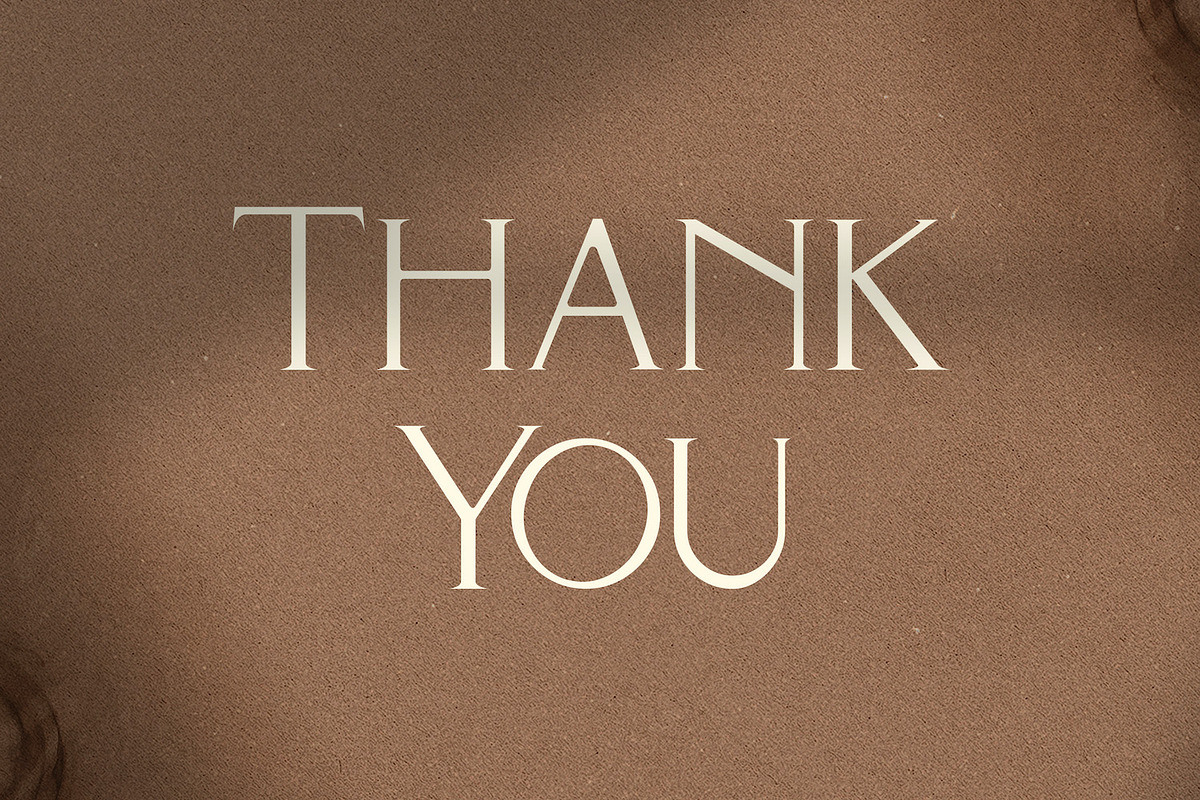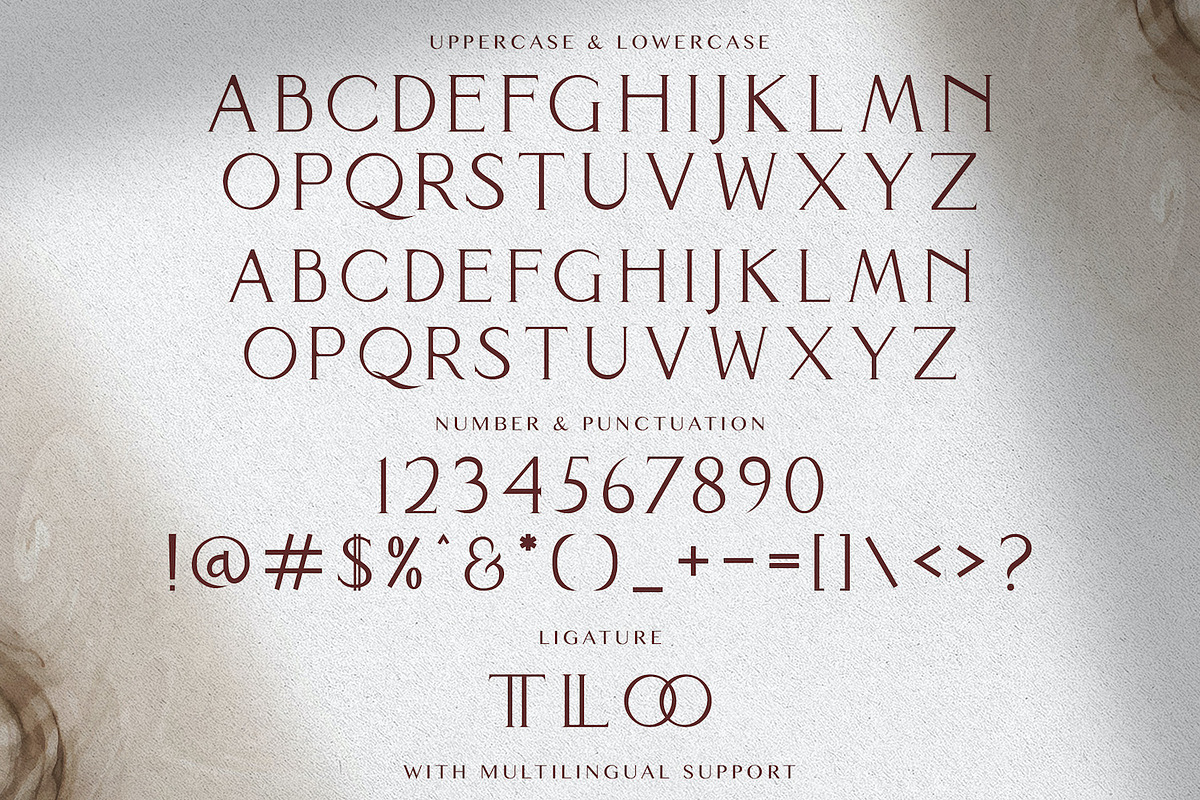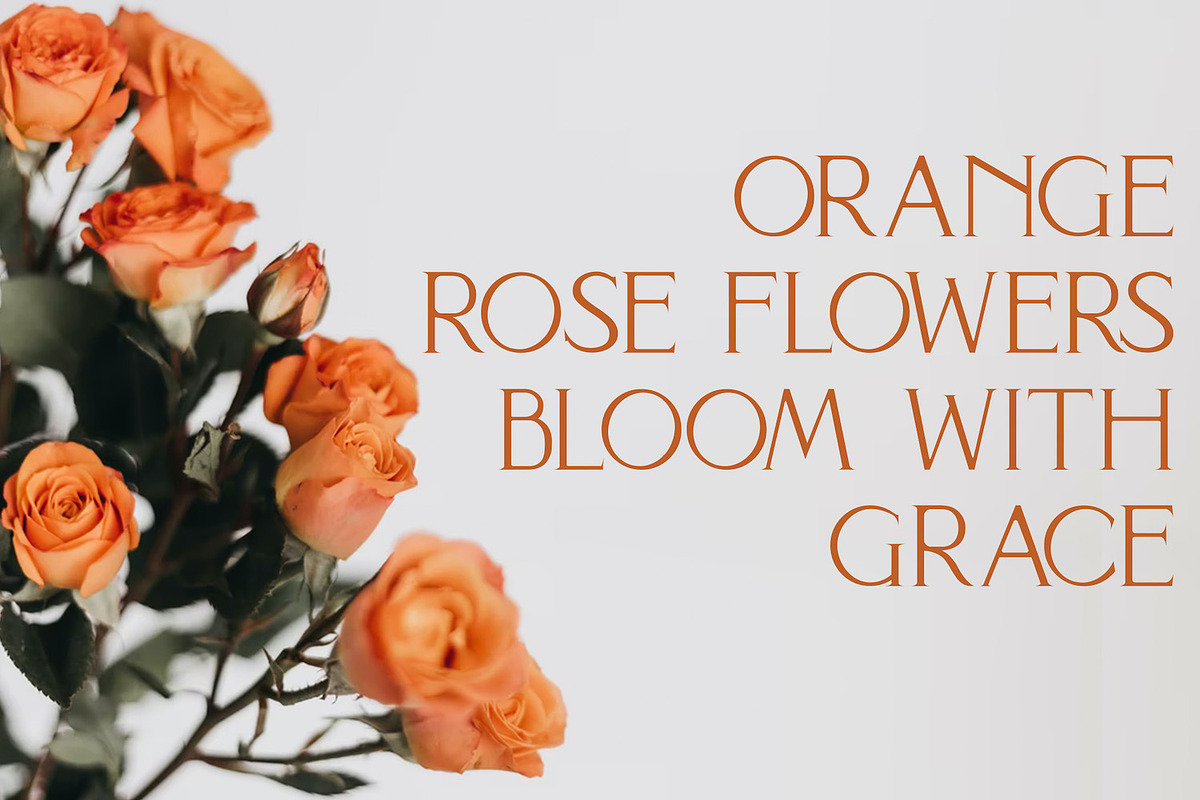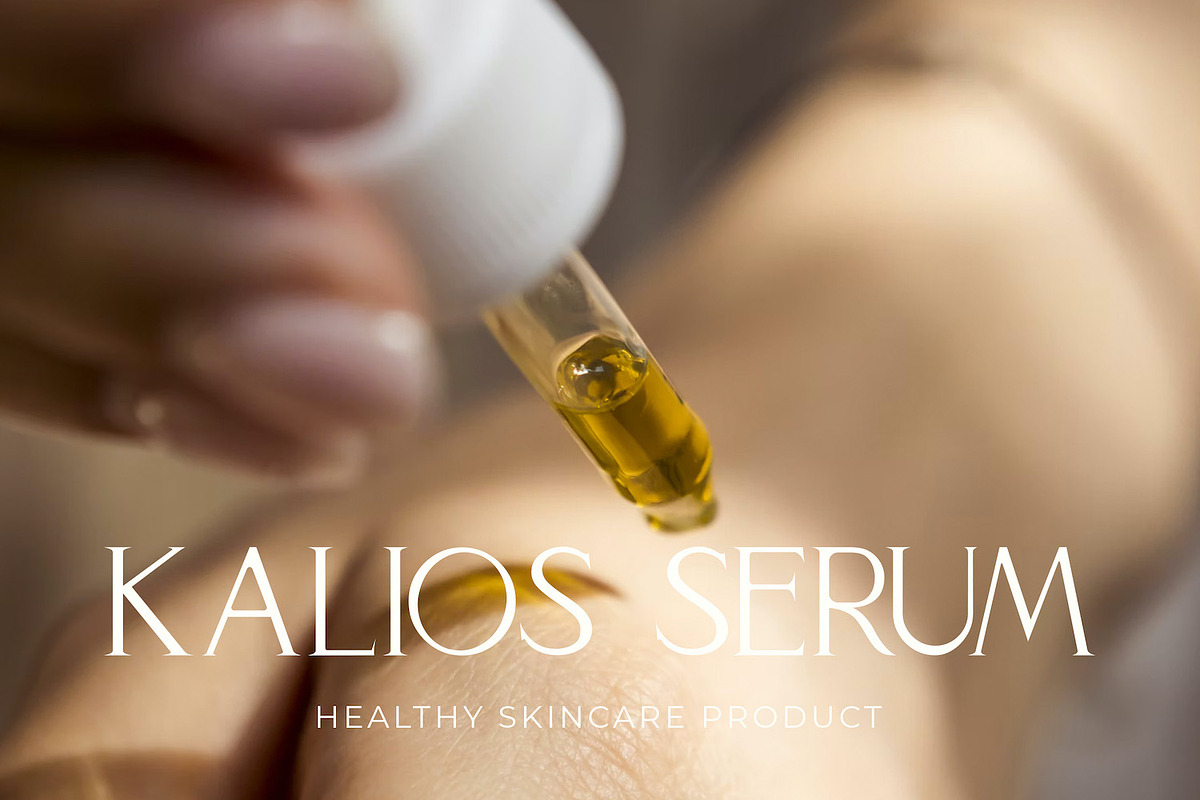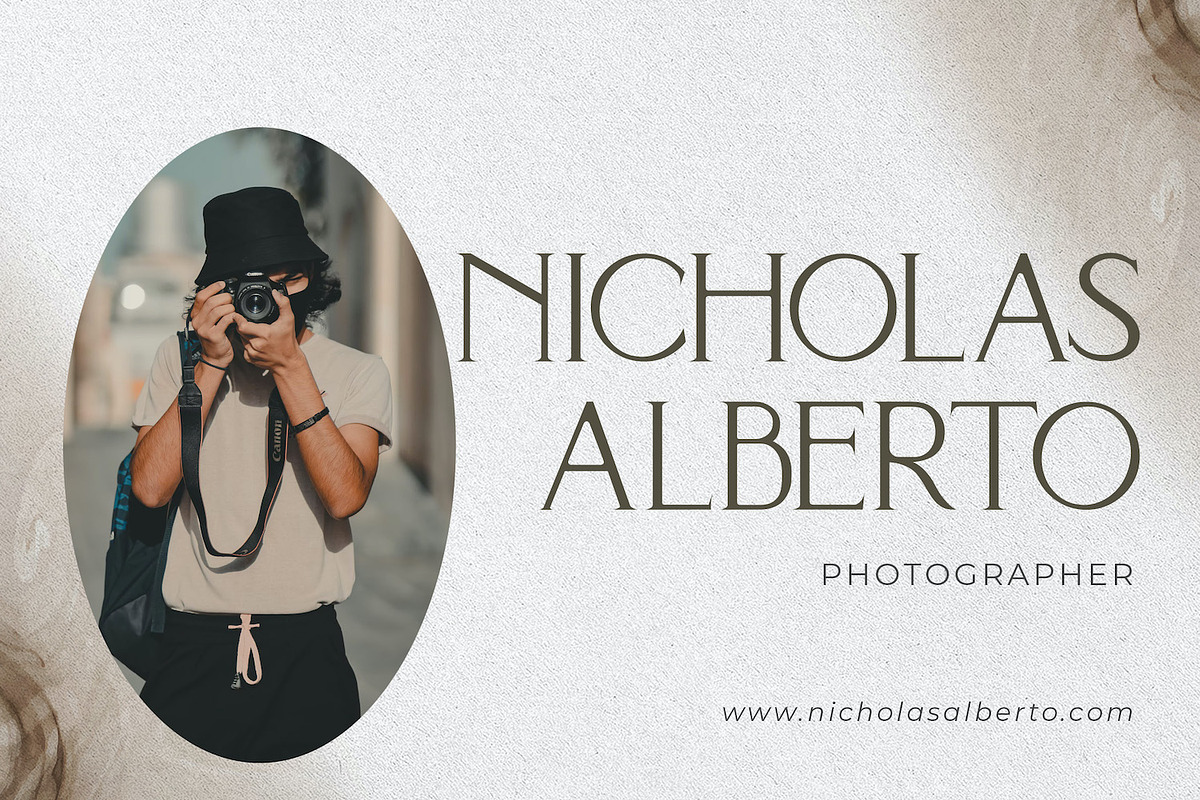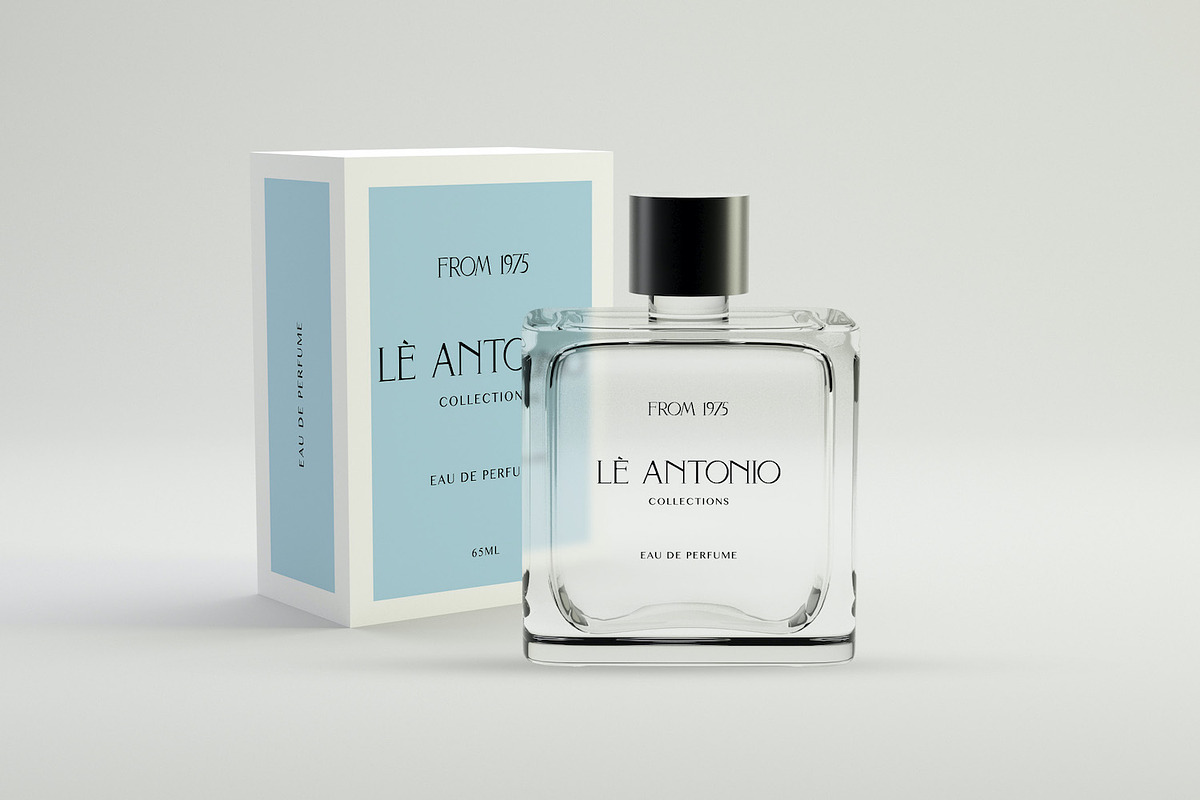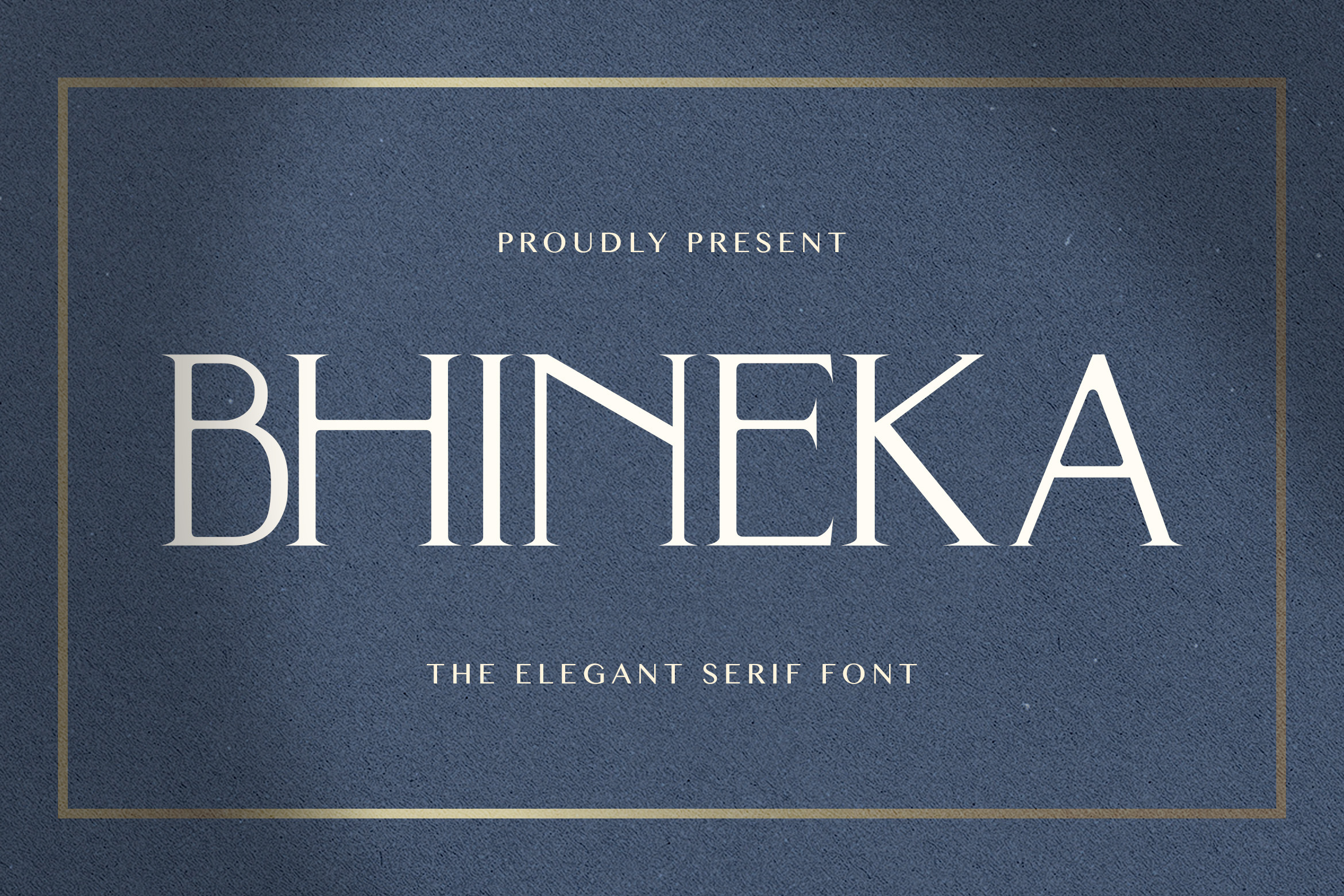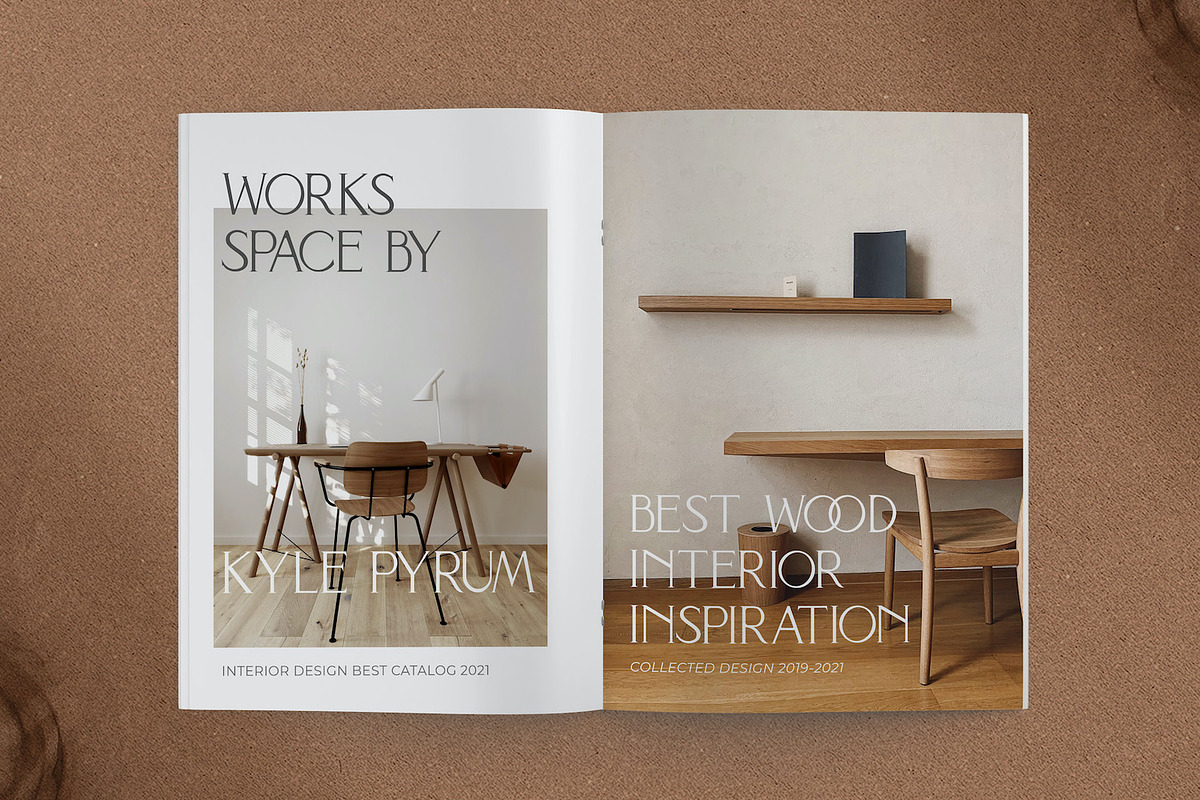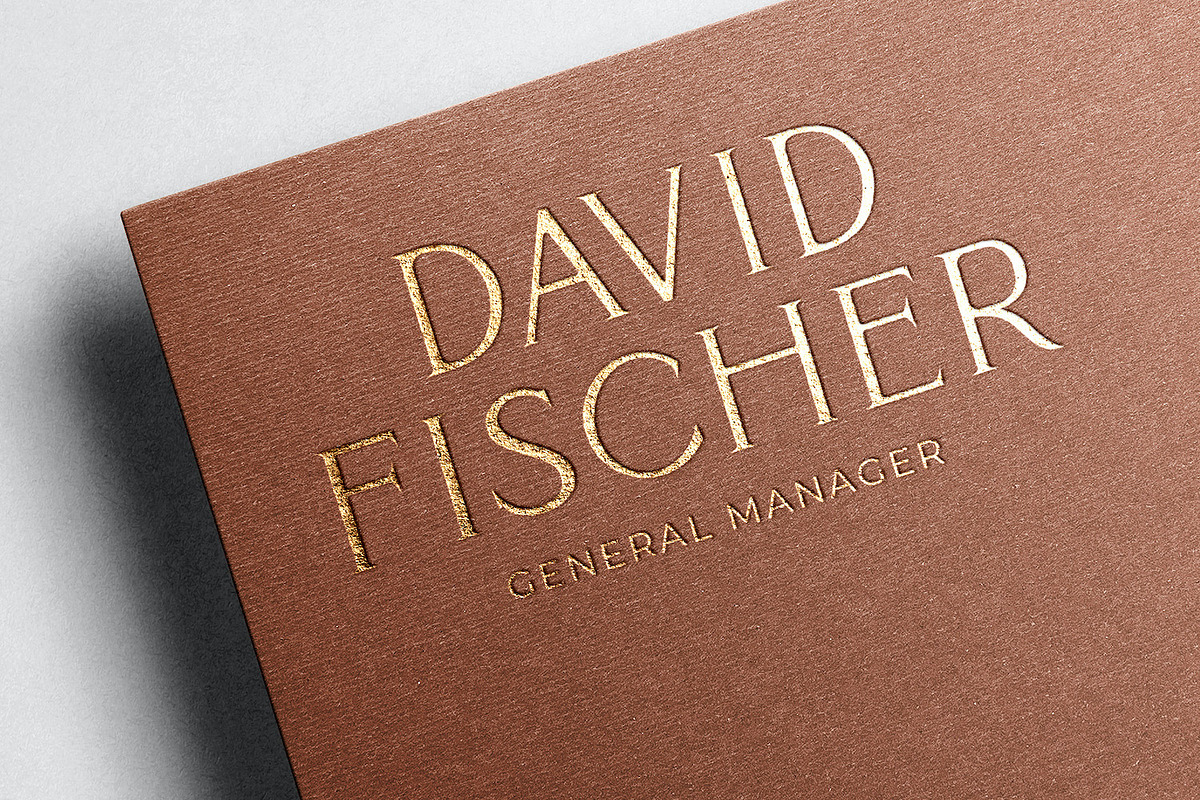
BHINEKA - Elegant Serif Font
Introducing BHINEKA - Elegant Serif Font
BHINEKA is an authentic and elegant serif font. It can easily be matched to an incredibly large set of projects, so add it to your creative ideas and notice how it makes them stand out!